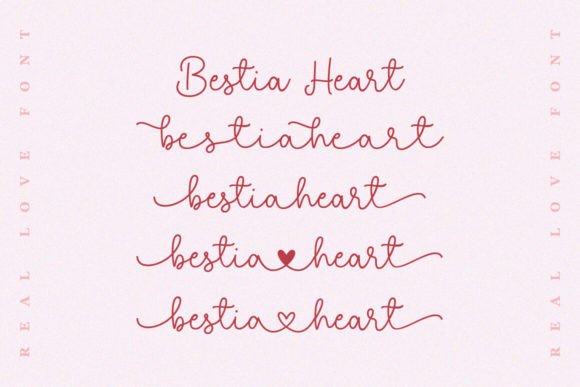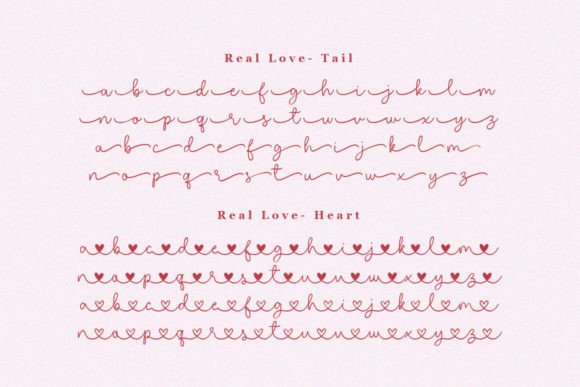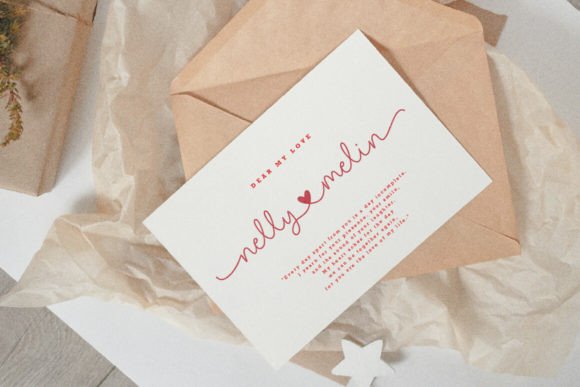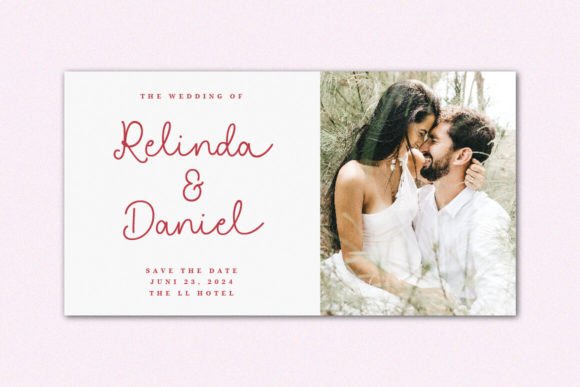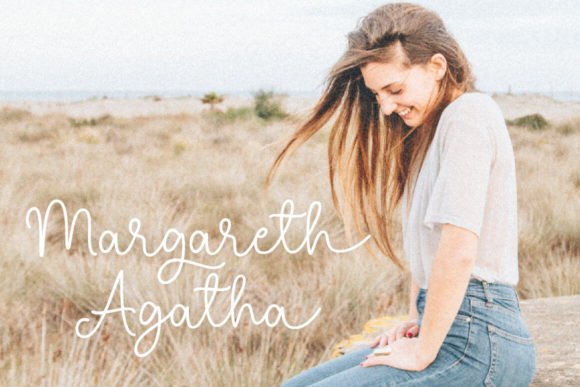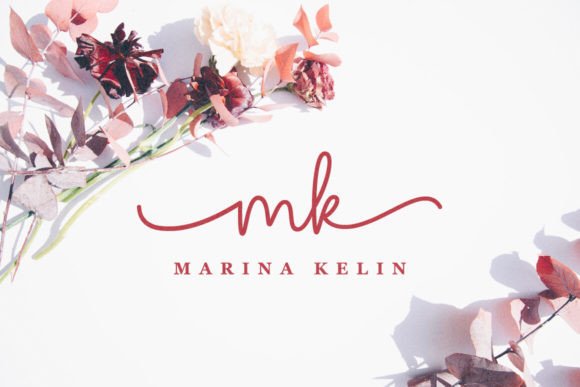
Introduction to Real Love Font
As a designer, you know the magic moment when a project comes together and you feel like you’ve captured the essence of your client’s vision. For me, that moment was when I stumbled upon the enchanting Real Love Font. Its whimsical charm and romantic flair instantly stole my heart, making it the perfect fit for a wedding invitation design project. The Real Love Font’s captivating swashes and lovely letter alternates added a touch of sophistication, elevating the design to new heights.
As a valuable design resource, the Real Love Font offers a high-quality solution for creative projects, from wedding invitations to love letters. Its unique heart-shaped connecting swashes provide a romantic and enchanting touch that’s perfect for designers looking to add a personal and emotional depth to their designs. With a transparent background, this font is versatile and can be easily used on any design project, making it a must-have for designers who want to add a touch of real love to their work.
Key Features of Real Love Font
- High-quality, professional font design perfect for creative projects
- Features a clean and elegant design, ideal for use in logos, branding, and typography-based projects
- Perfect for designers and artists looking for a unique, creative font to elevate their design projects
Honest Review: Real Love Font
As a designer, I’m always on the lookout for high-quality design resources to elevate my creative projects. Recently, I had the chance to work with the Real Love Font, and I’m excited to share my honest review with you.
- ✨ Unique and playful style that adds a touch of whimsy to any design
- ✨ High-quality glyphs and detailed textures that make it perfect for print or digital projects
- ✨ Transparent background, making it easy to layer and combine with other design elements
- ⚠️ Limited character set, which may not be suitable for long-form text projects
- ⚠️ Not ideal for projects that require a wide range of font sizes and weights
How to Use Real Love Font
Introduction to Real Love Font
The Real Love Font is a high-quality design resource perfect for any creative project. With its unique style and transparent background, this font is ideal for various applications.
Tips for Getting the Most Out of Real Love Font
To get the most out of the Real Love Font, experiment with different font sizes, colors, and spacing. Use it in combination with other design elements, such as images and graphics, to create a visually appealing design.
Common Use Cases for Real Love Font
The Real Love Font is perfect for various applications, including wedding invitations, social media graphics, and marketing materials. Its unique style and transparent background make it an ideal choice for creative projects that require a touch of elegance and sophistication.